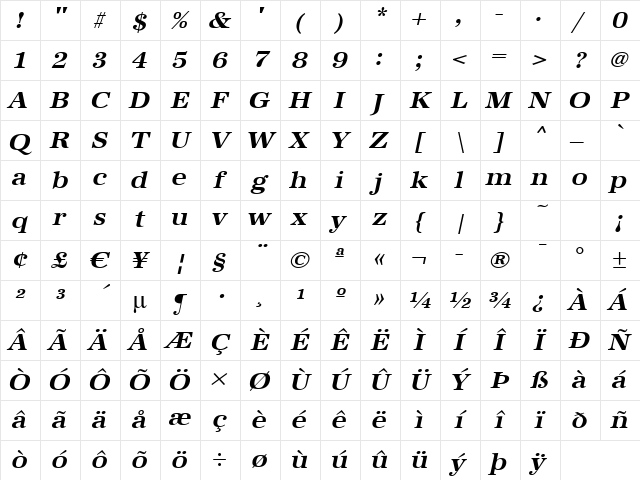
IrisBeckerExtended Bold Italic Free Font
IrisBeckerExtended Bold Italic
Design Context for IrisBeckerExtended
IrisBeckerExtended is a composed and adaptable typeface that performs quietly and consistently across a wide range of design contexts. The slanted form adds forward momentum and visual energy. Its bold stroke weight gives it real presence on the page.